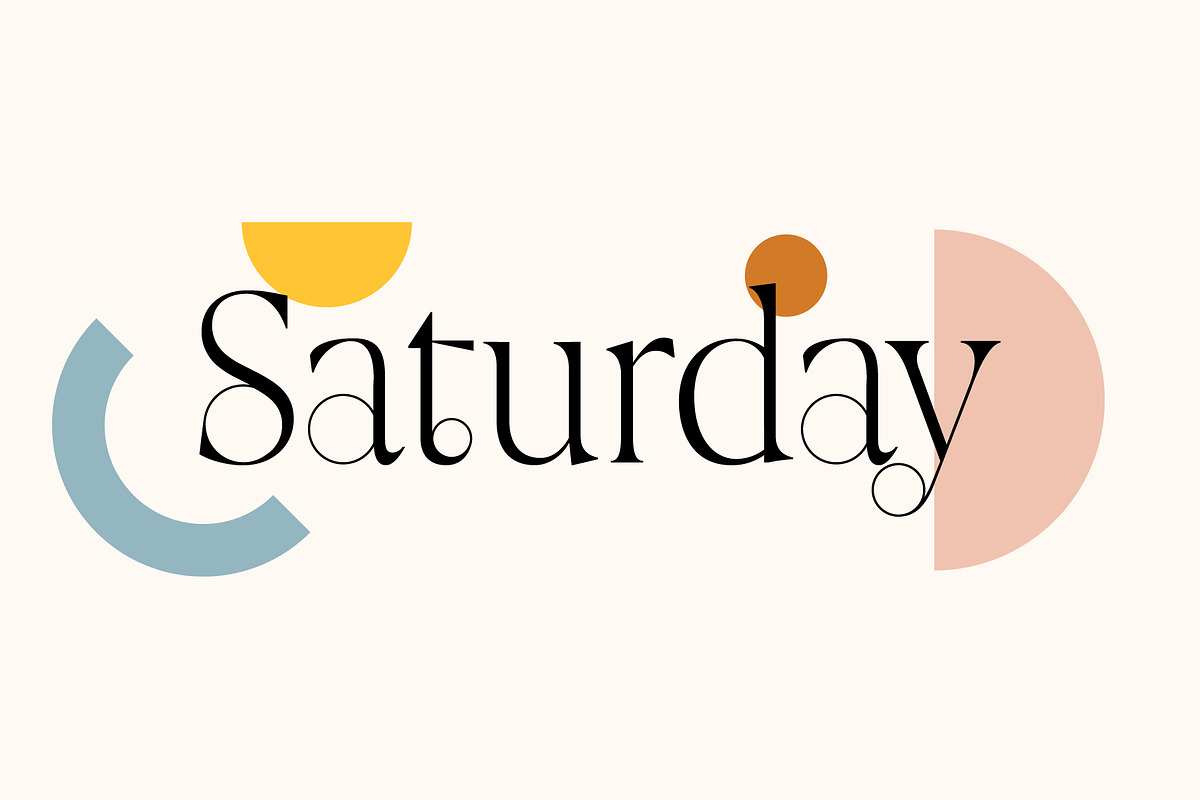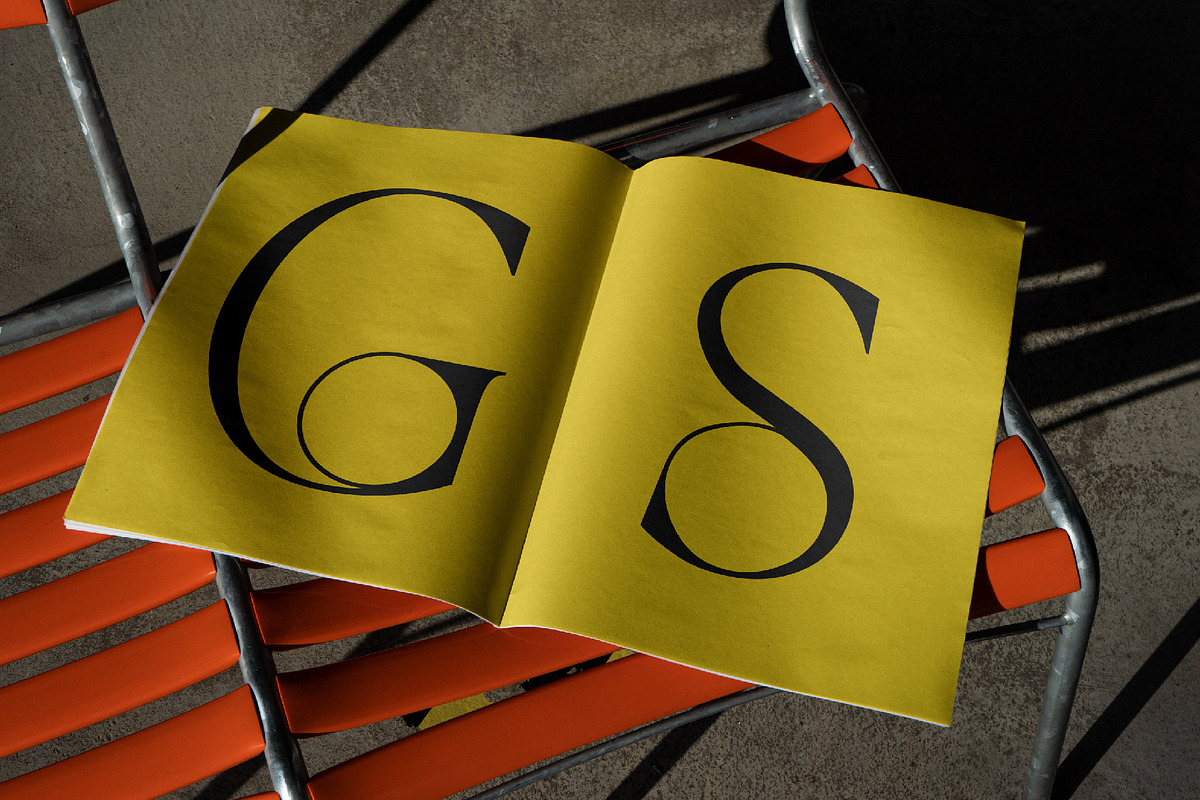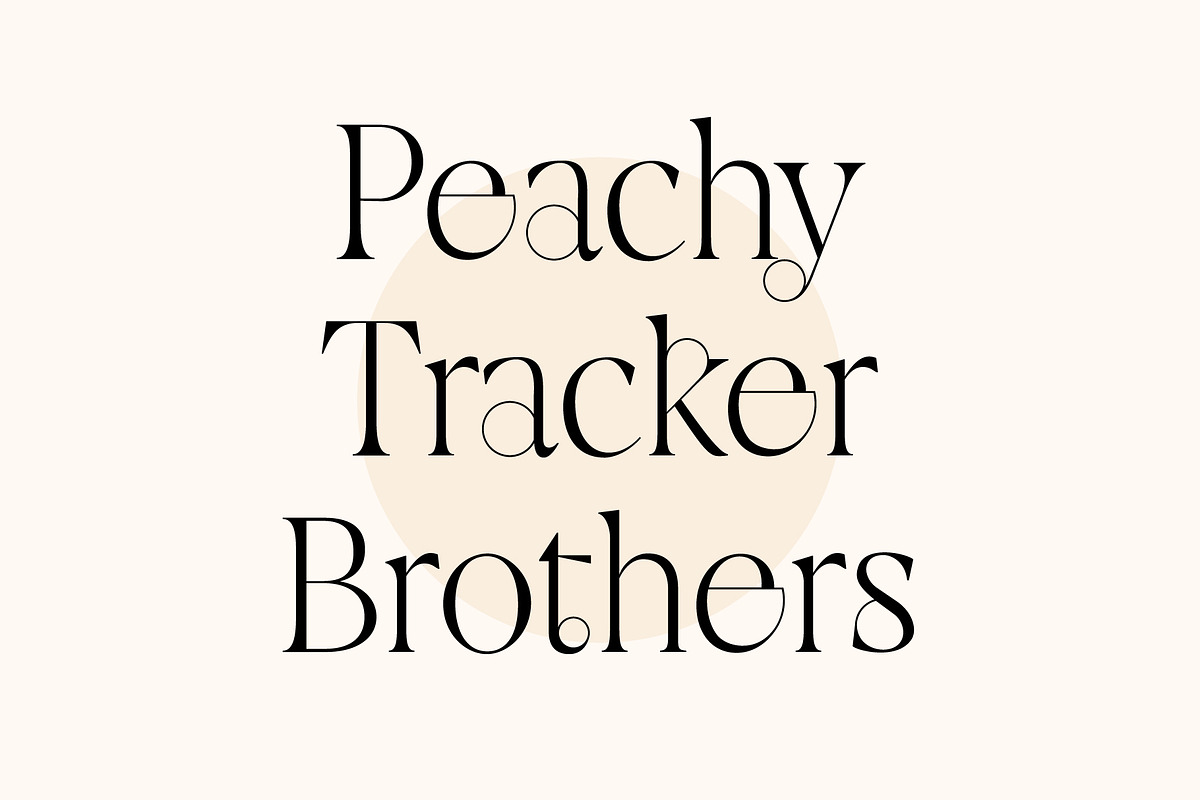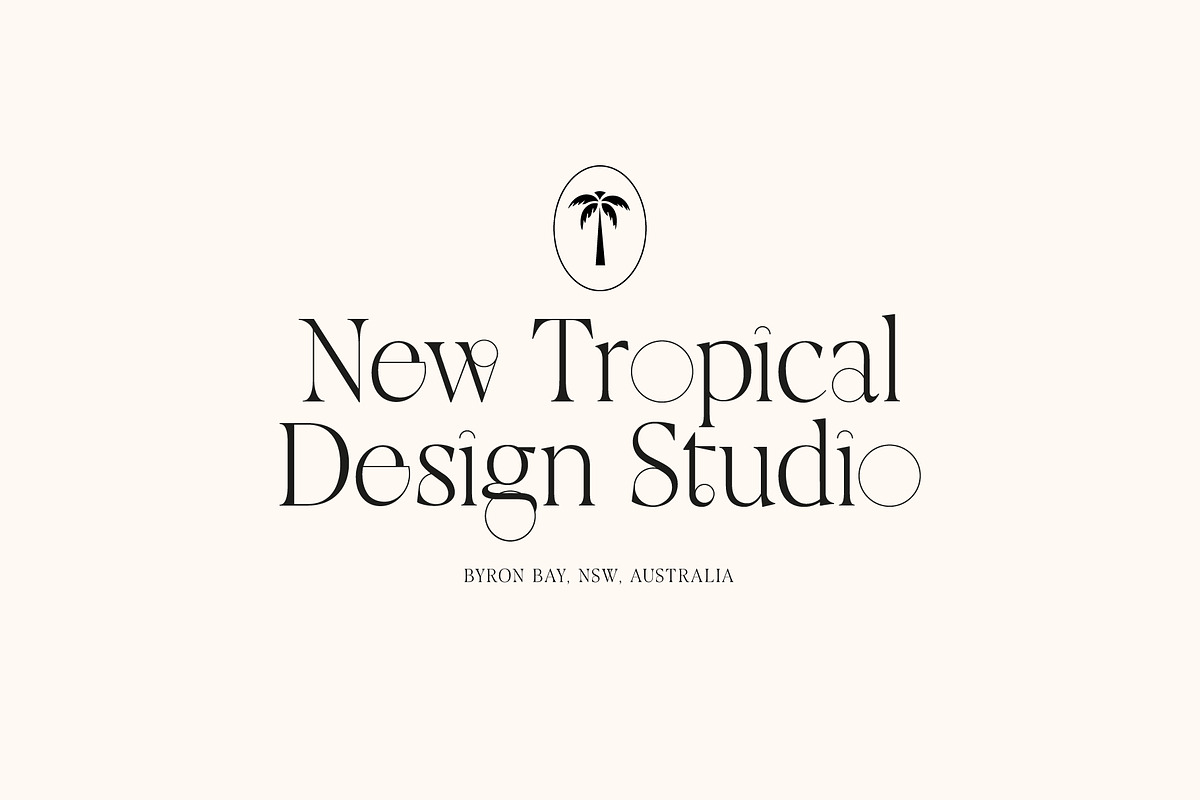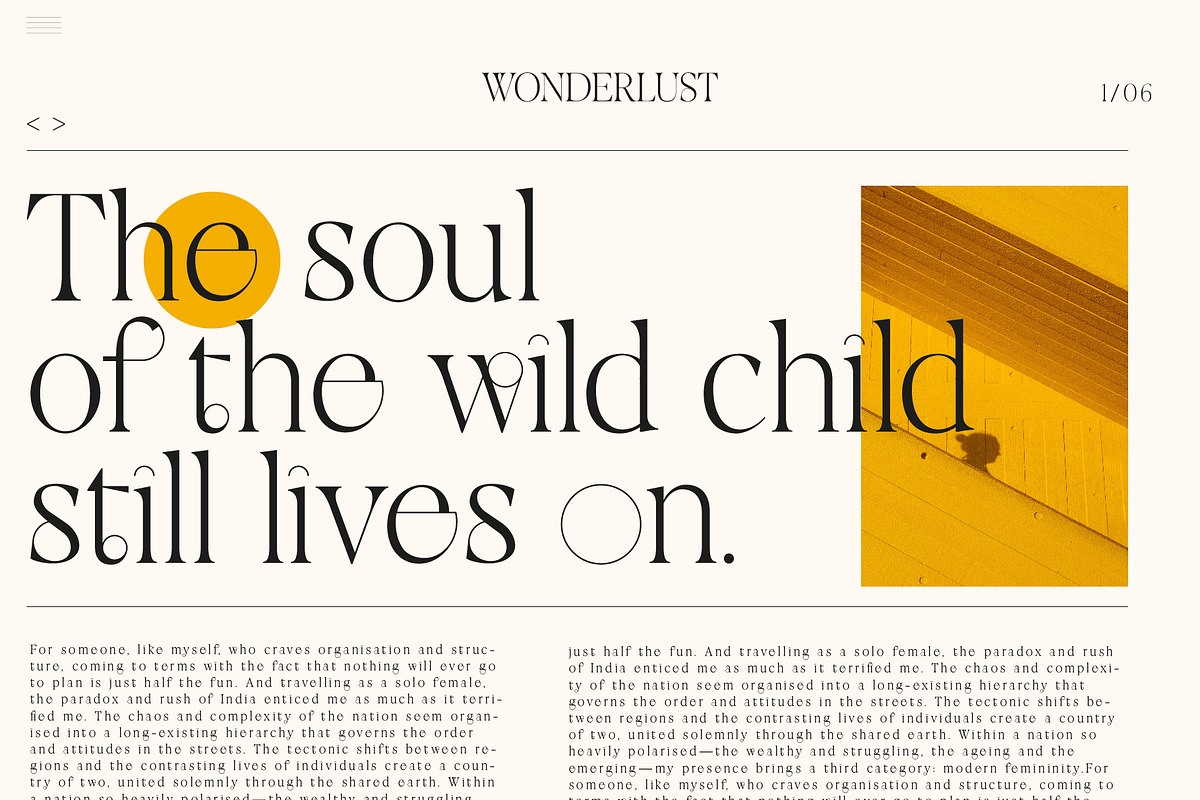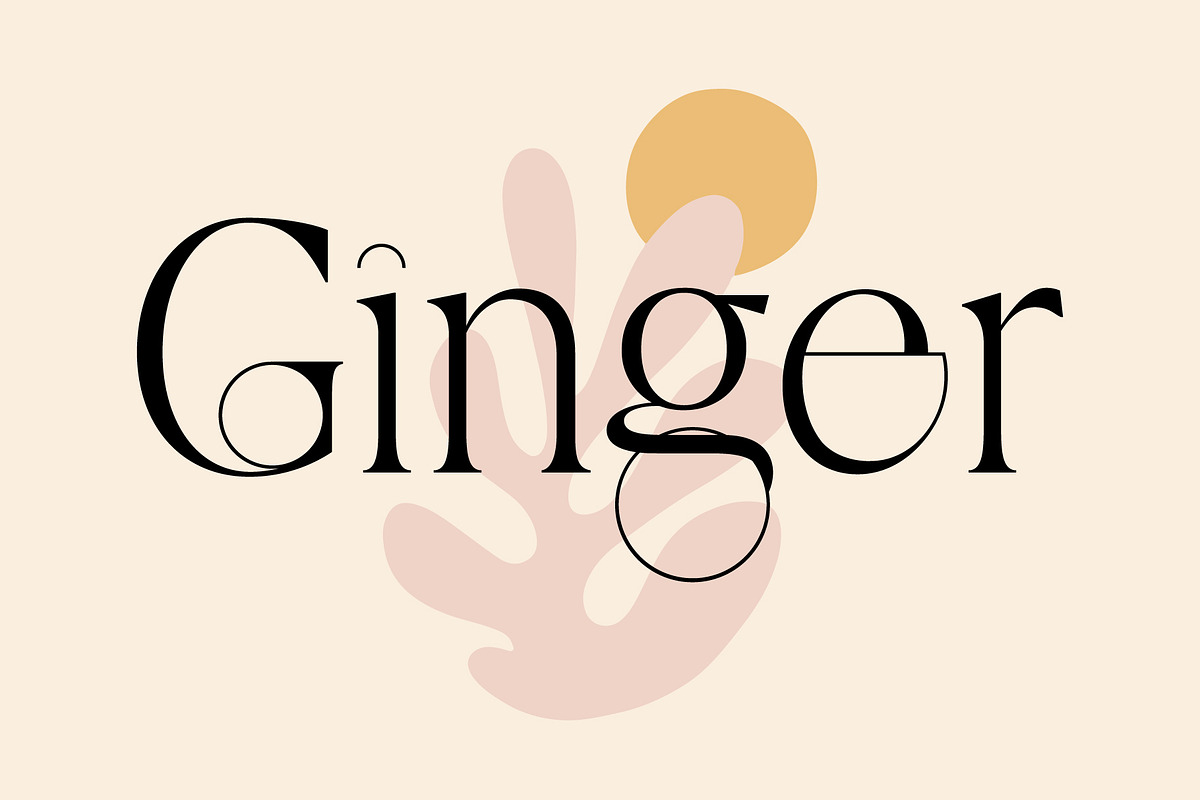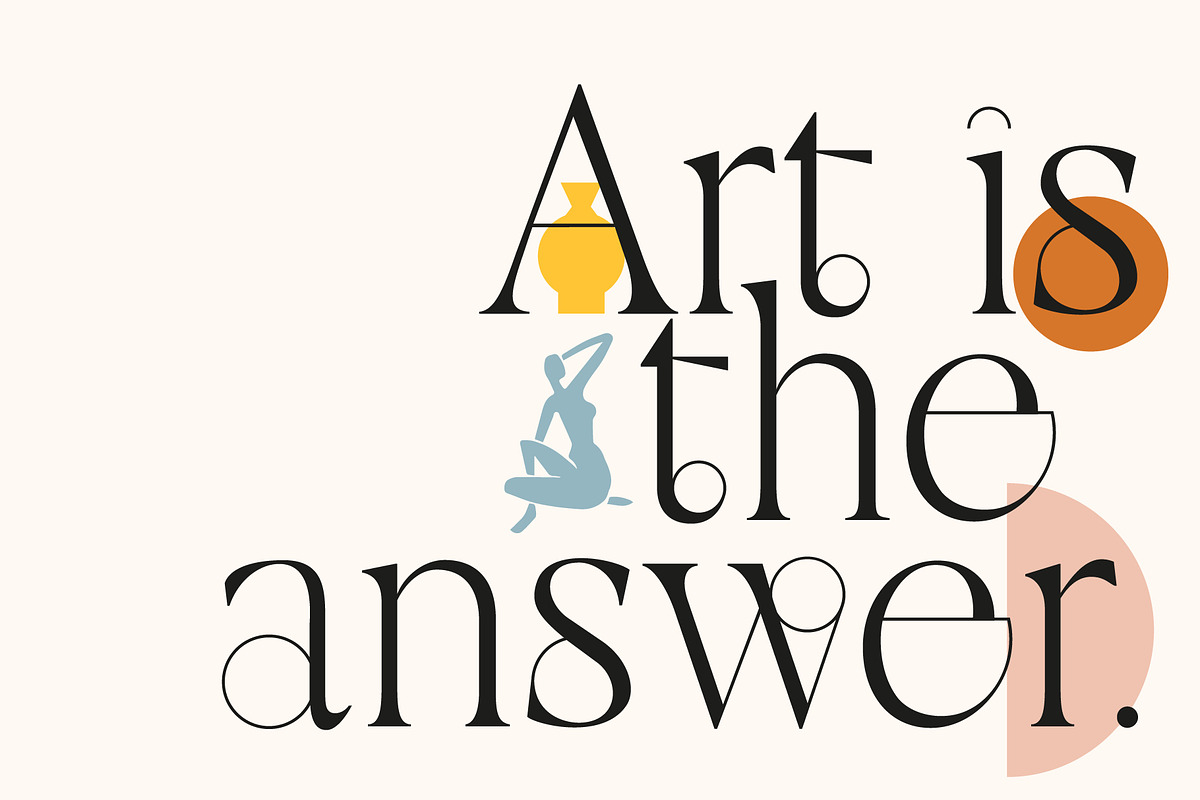
Ginger - Geometric Serif
Ginger is a modern serif that is based the classic circle. Unique geometric characters make this typeface a memorable modern addition to your font collection.